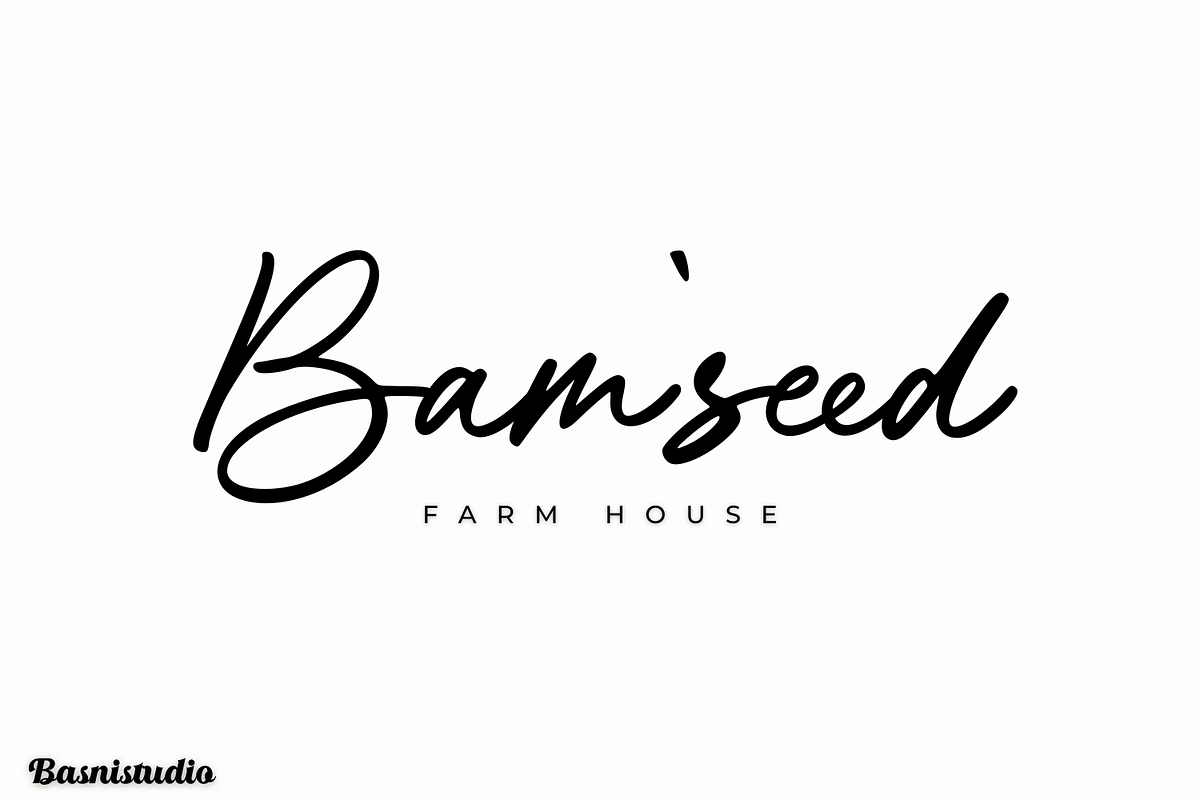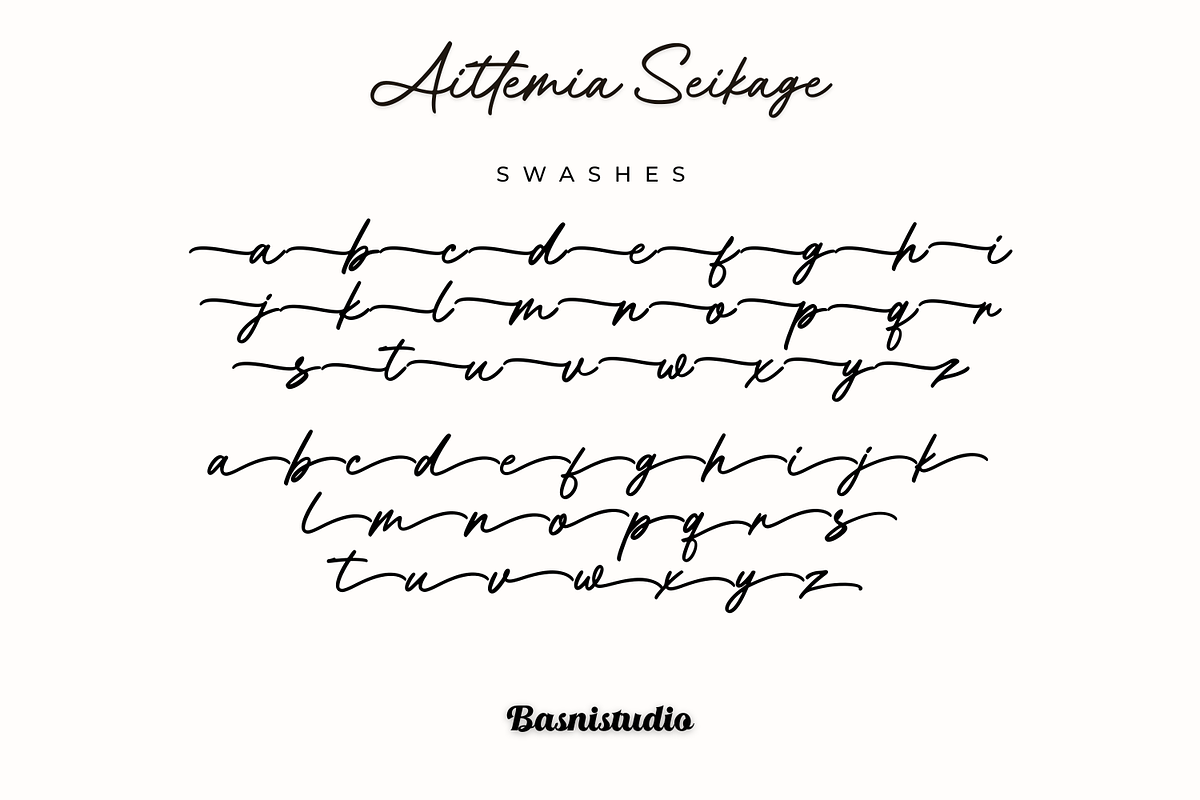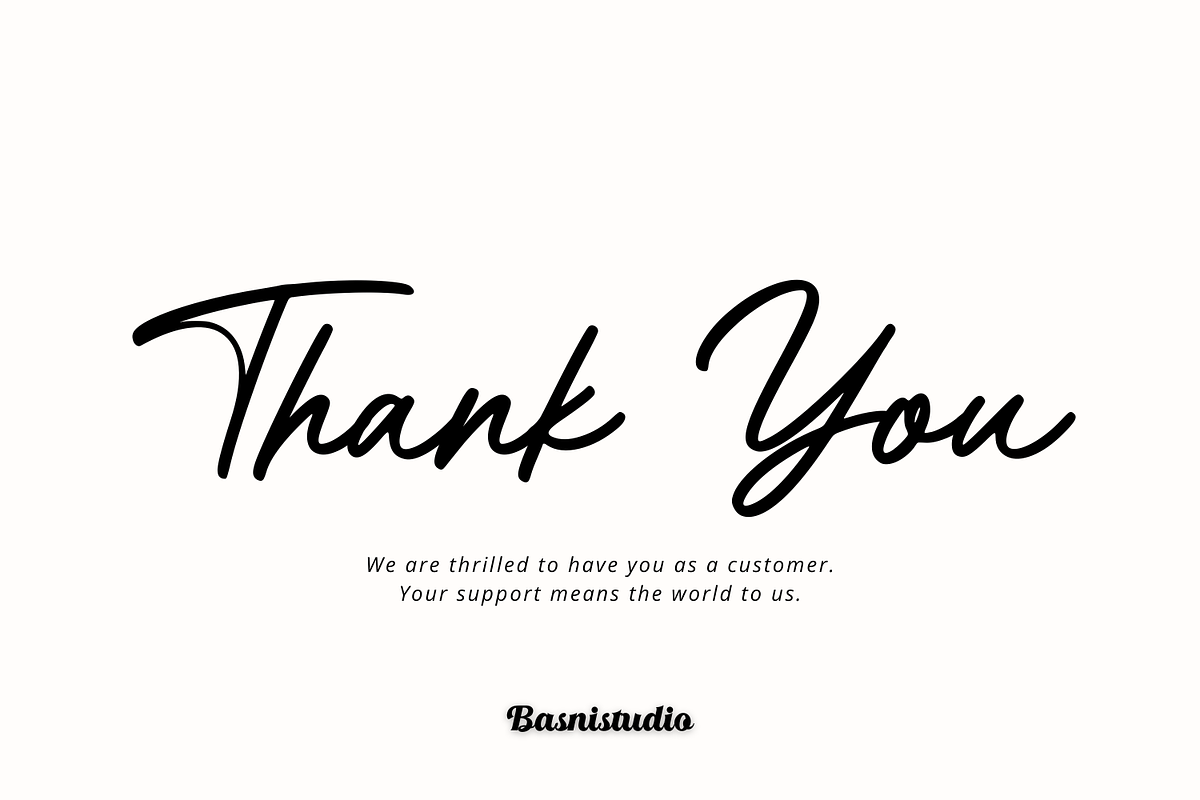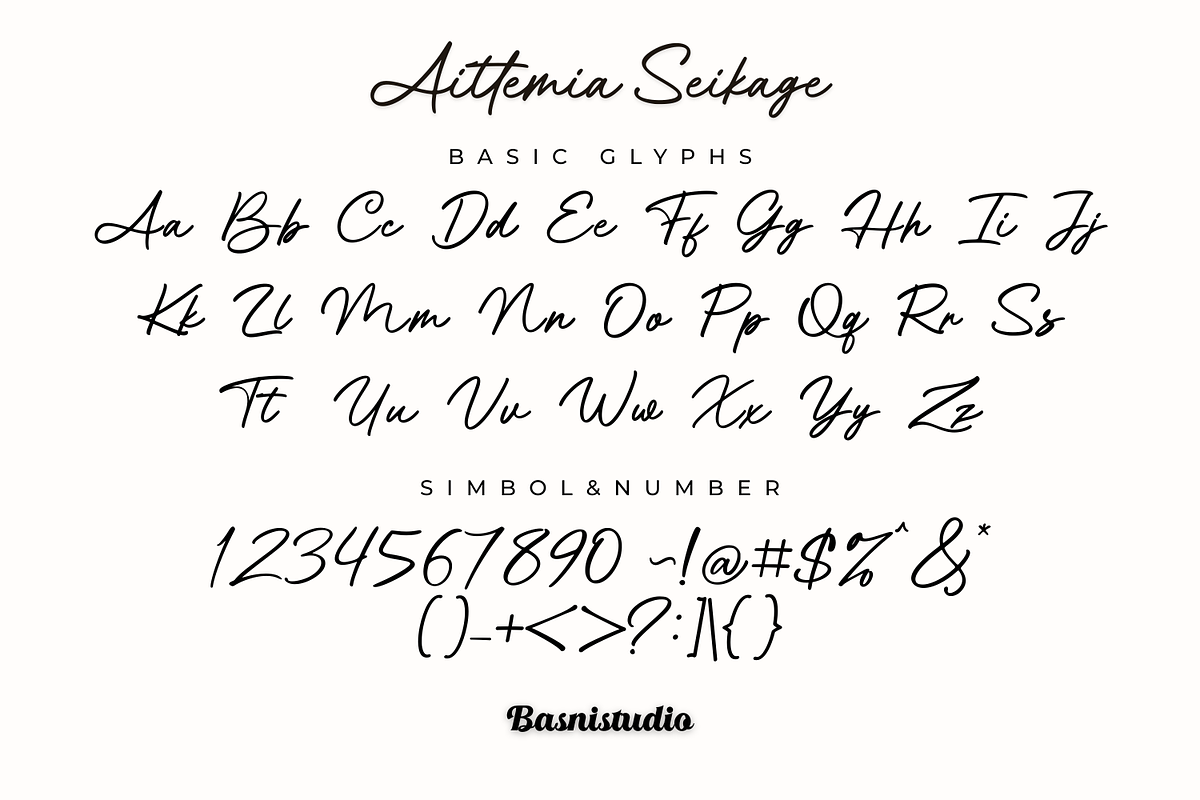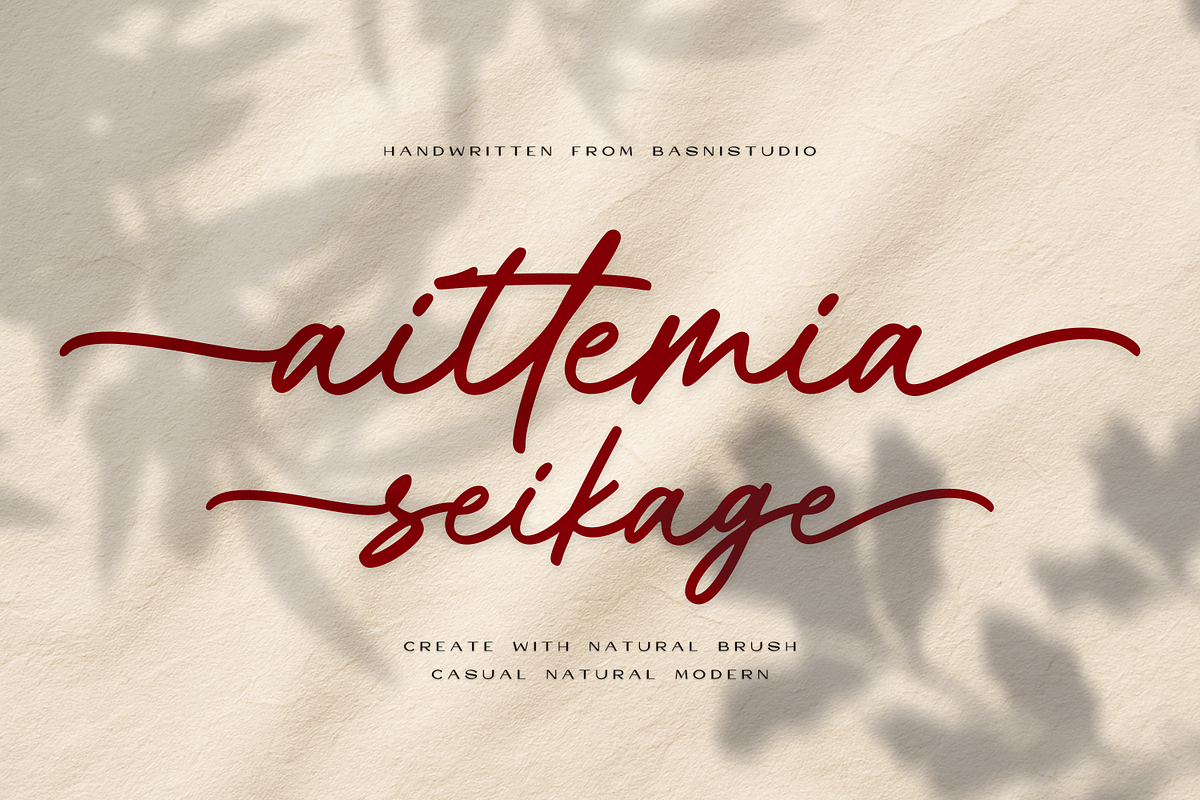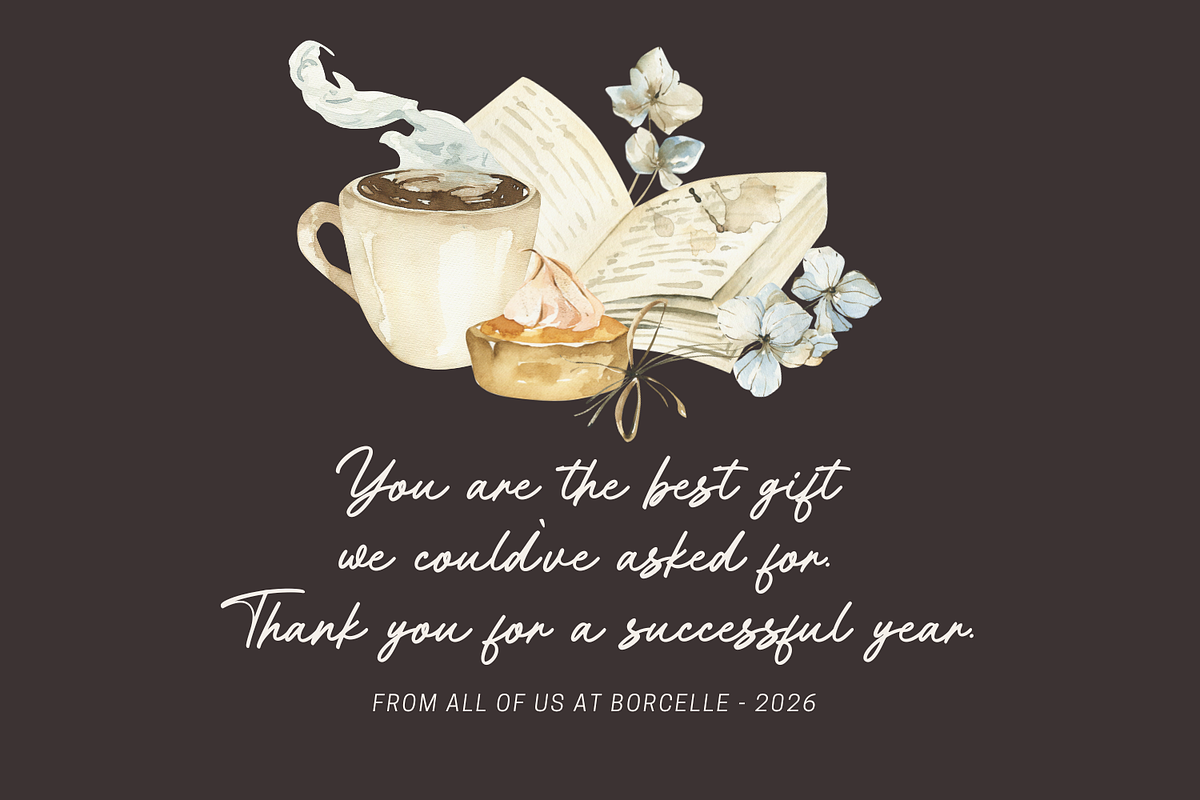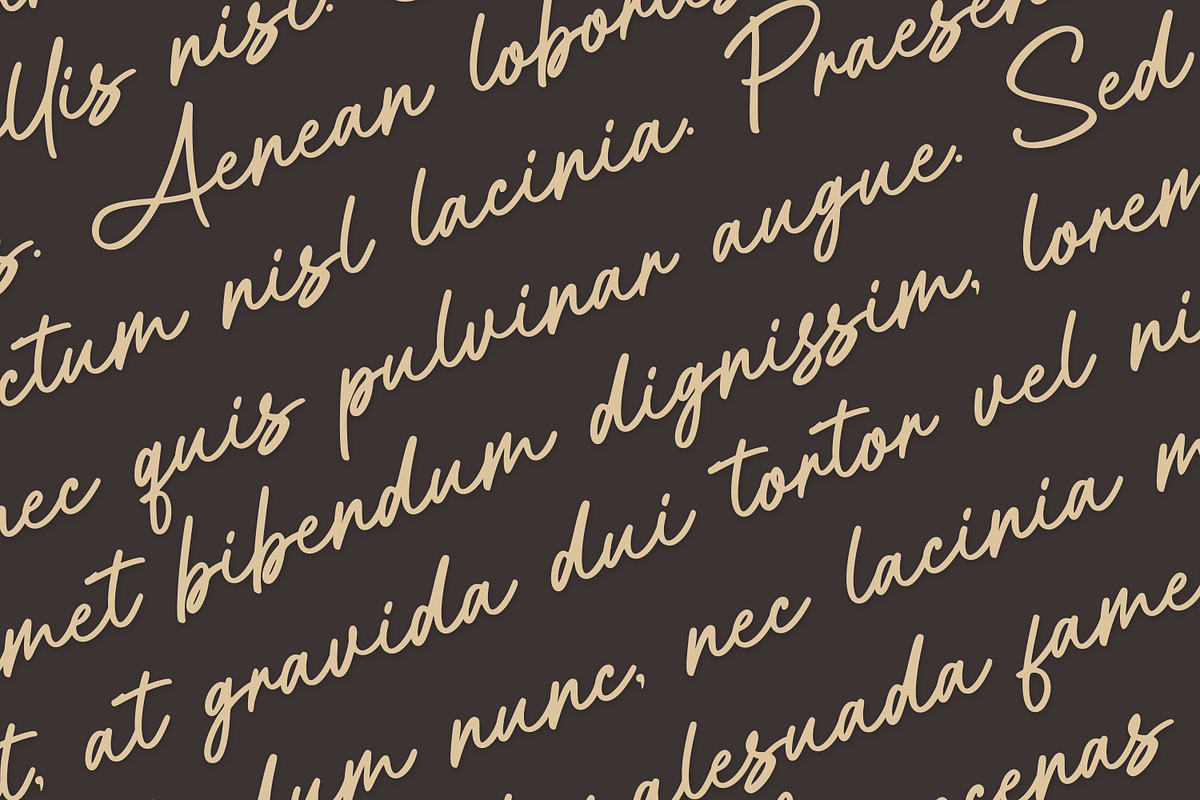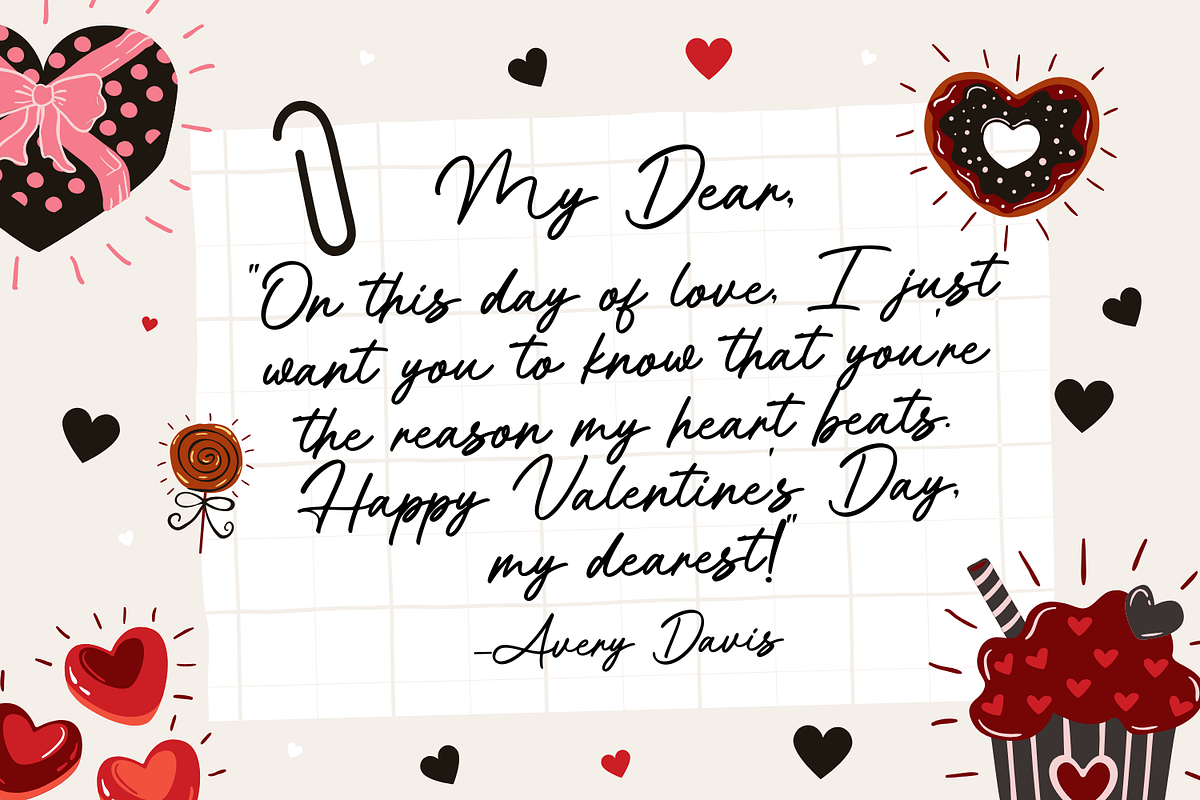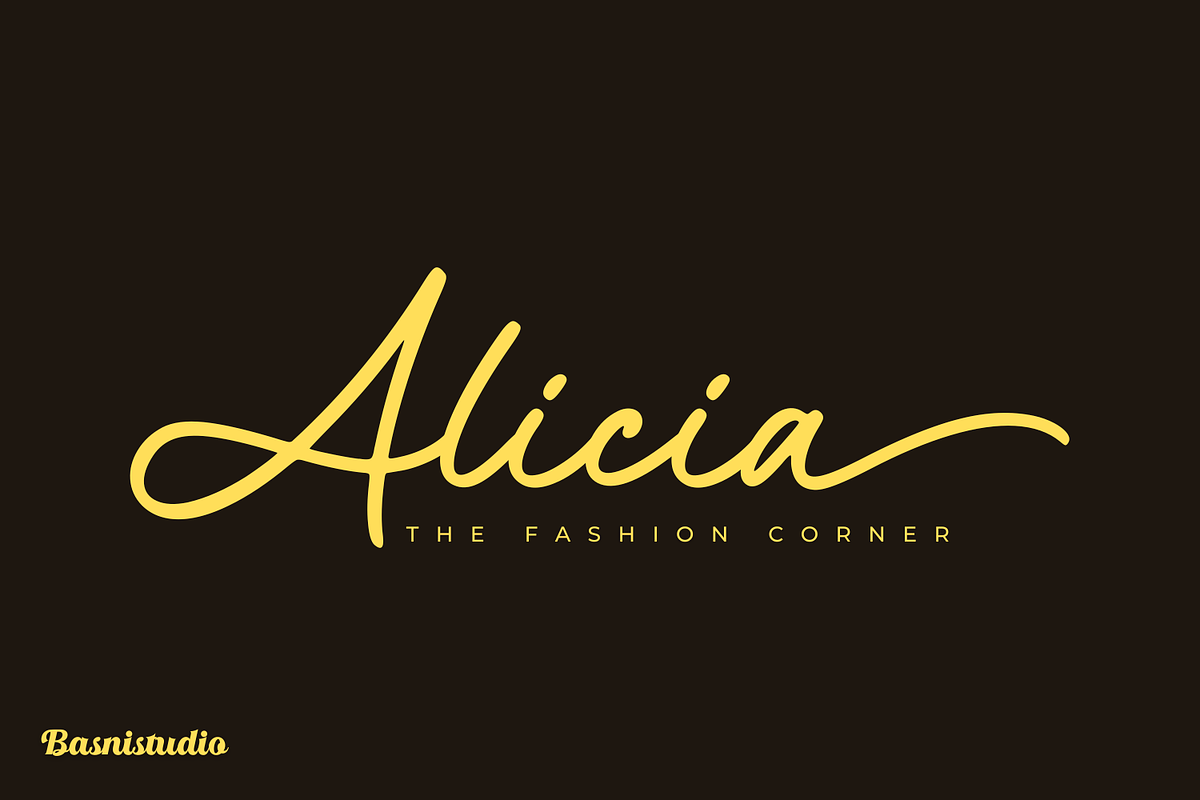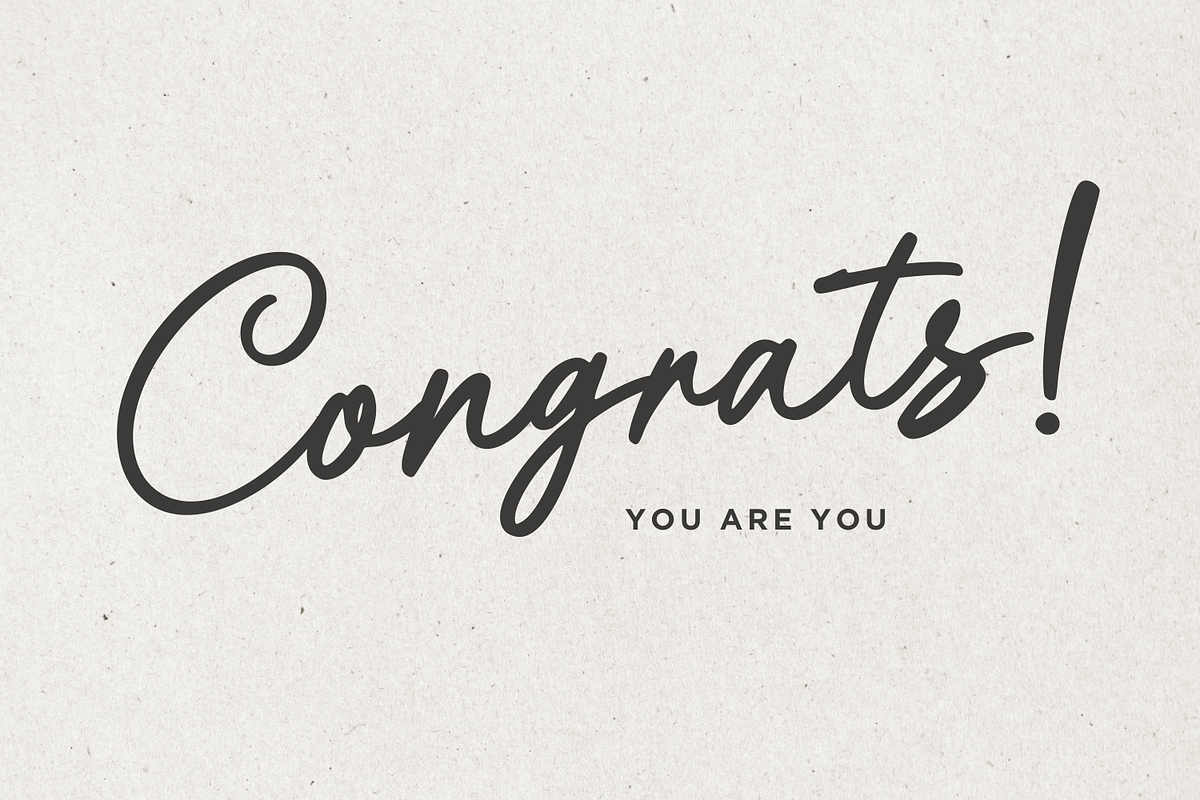
Aittemia Seikage a Handwritten Font
The Perfect Handwritten Touch for Your Designs
Introducing Aittemia Seikage a Handwritten Font that adds a Natural and Versatile touch to everything from branding and social media to invitations and packaging.
✔ Elegant & Versatile – Perfect for logos, quotes, greeting cards, and more ✔ Authentic Handwritten Feel – Created with real pen strokes for a natural look ✔ Easy to Use – Works seamlessly with all major design programs
Whether you’re building a powerful brand identity or crafting a standout logo,
Aittemia Seikage a Handwritten Font gives you the creative edge you need.